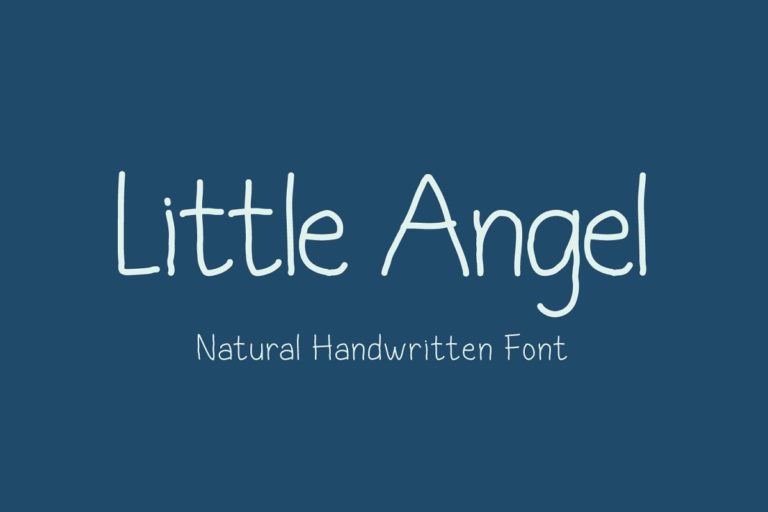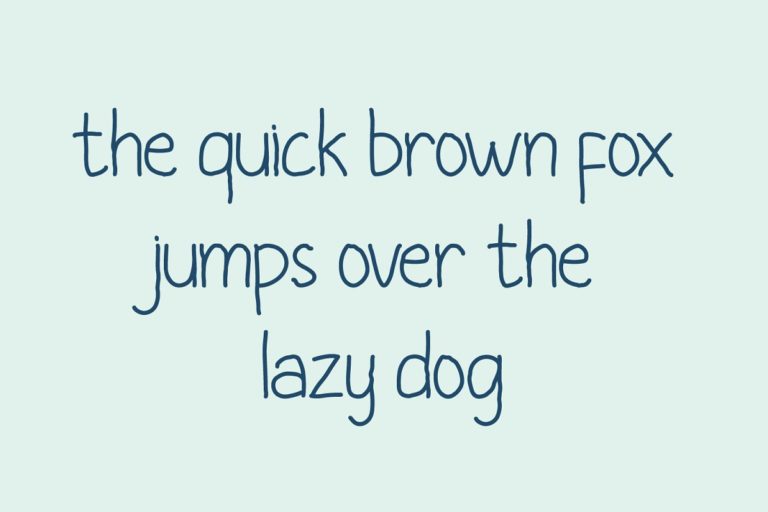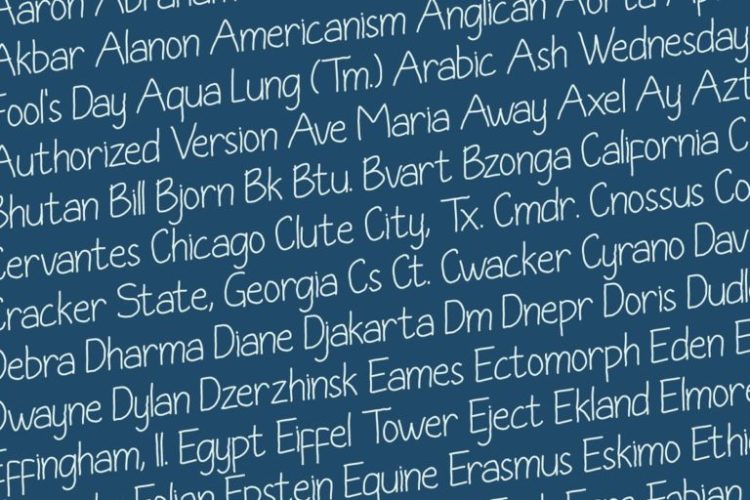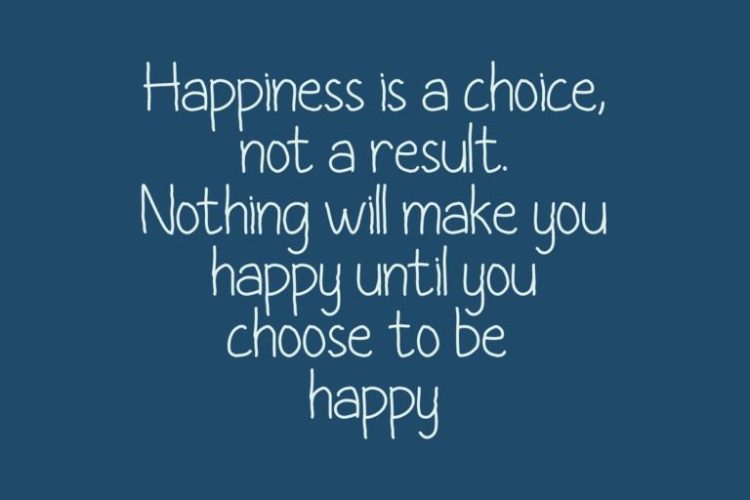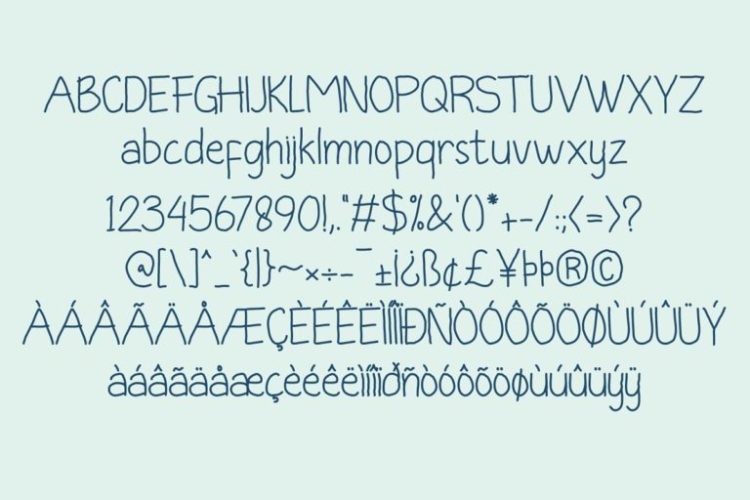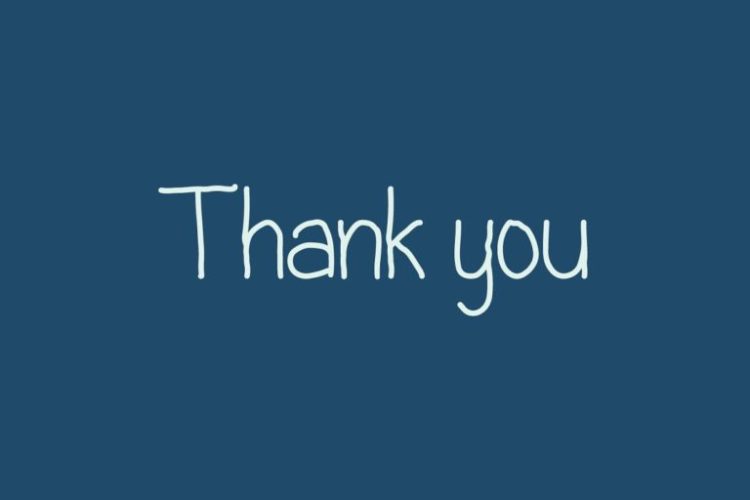
Little Angel fonts is a handwritten Sans Serif, every single letter has been carefully crafted to make your text looks beautiful. it’s perfect for logos, name card, magazine layouts, invitations, headers, or even large-scale artwork.
Features :
1. Uppercase & lowercase
2. Numerals & Punctuations (OpenType Standard)
3. Accents (Multilingual characters) (AÀÁÂÃÄÅCÇDÐEÈÉÊËIÌÍÎÏNÑOØÒÓÔÕÖUÙÜÚÛWYÝŸ?ŸÆŒßÞ)